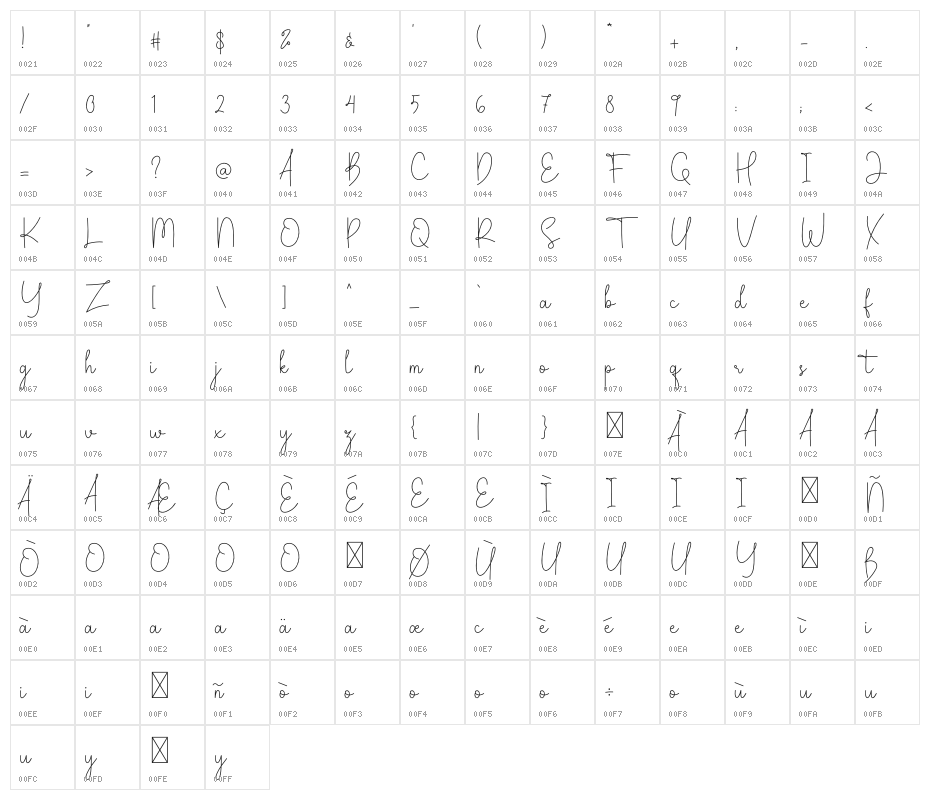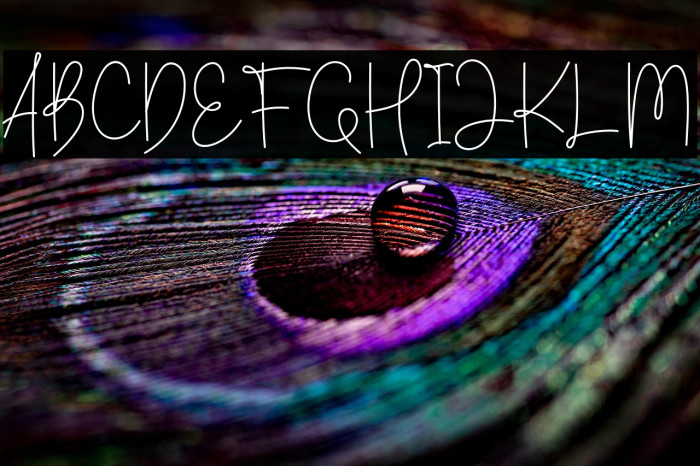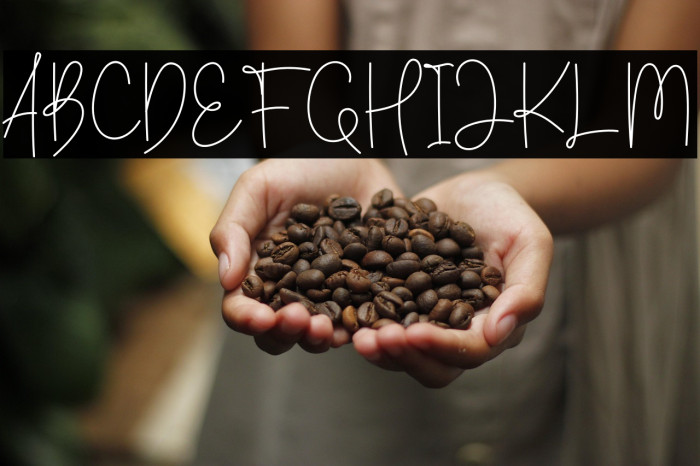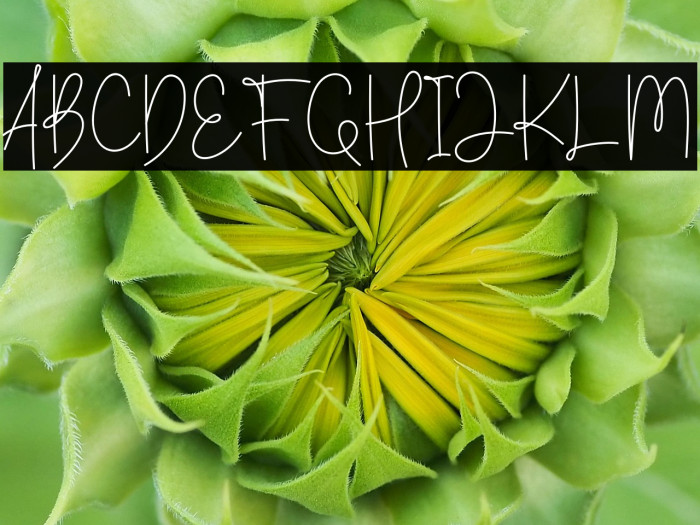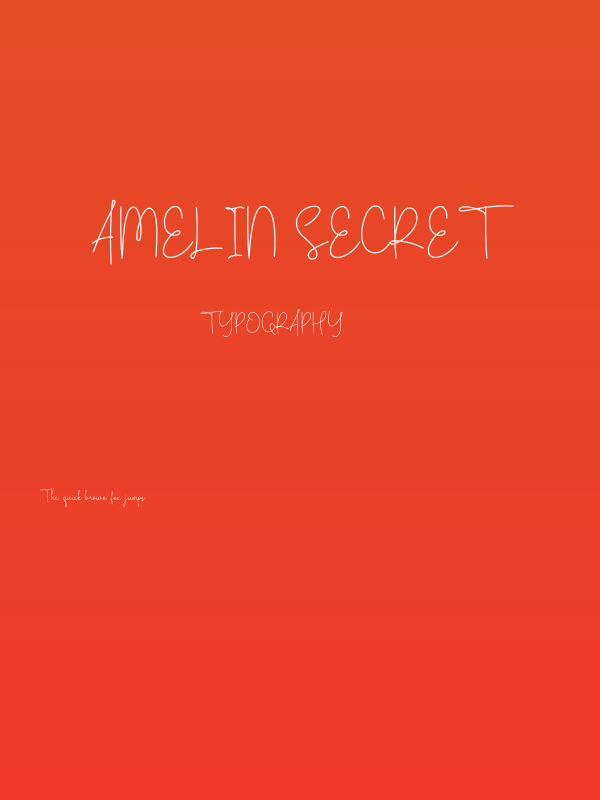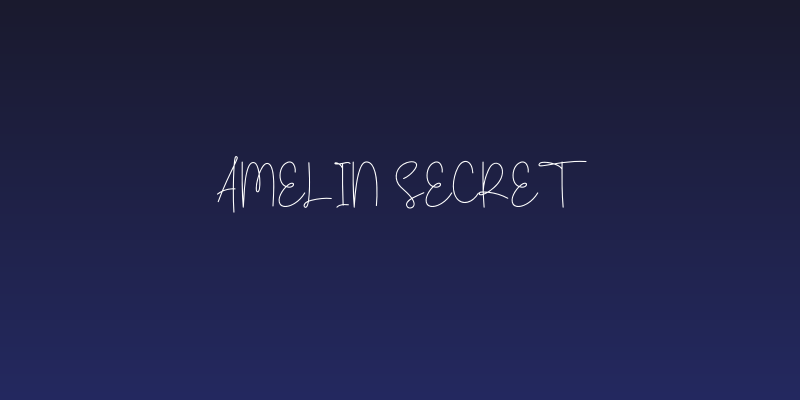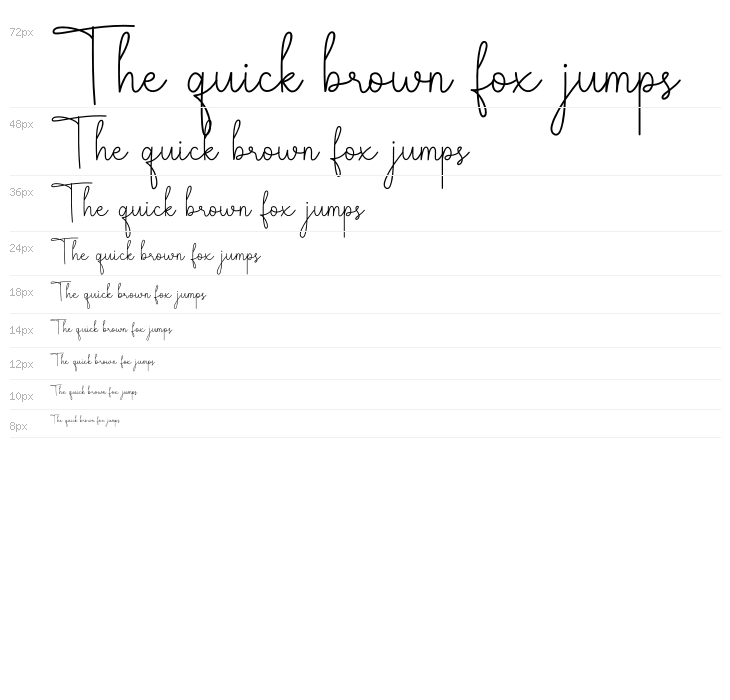
Amelin Secret Font
Amelin Secret Description
This font features a whimsical and playful handwritten style, characterized by its thin, flowing lines and elegant curves. The uppercase letters are tall and narrow, with a slight slant that adds a dynamic feel. The lowercase letters maintain a consistent style, with smooth connections and a natural flow that mimics cursive handwriting. Numbers and special characters are designed to complement the overall aesthetic, maintaining the same light and airy quality. This font exudes a sense of creativity and personal touch, making it ideal for projects that require a unique and artistic flair.
A whimsical handwritten font with thin, flowing lines and elegant curves.
- Font: Amelin Secret
- Proposed Projects: Ideal for wedding invitations, greeting cards, personal branding, and creative projects that require a personal touch.
- Category: Handwritten
- Weight: Light
- Use Case: Logos, Invitations, Personal Branding